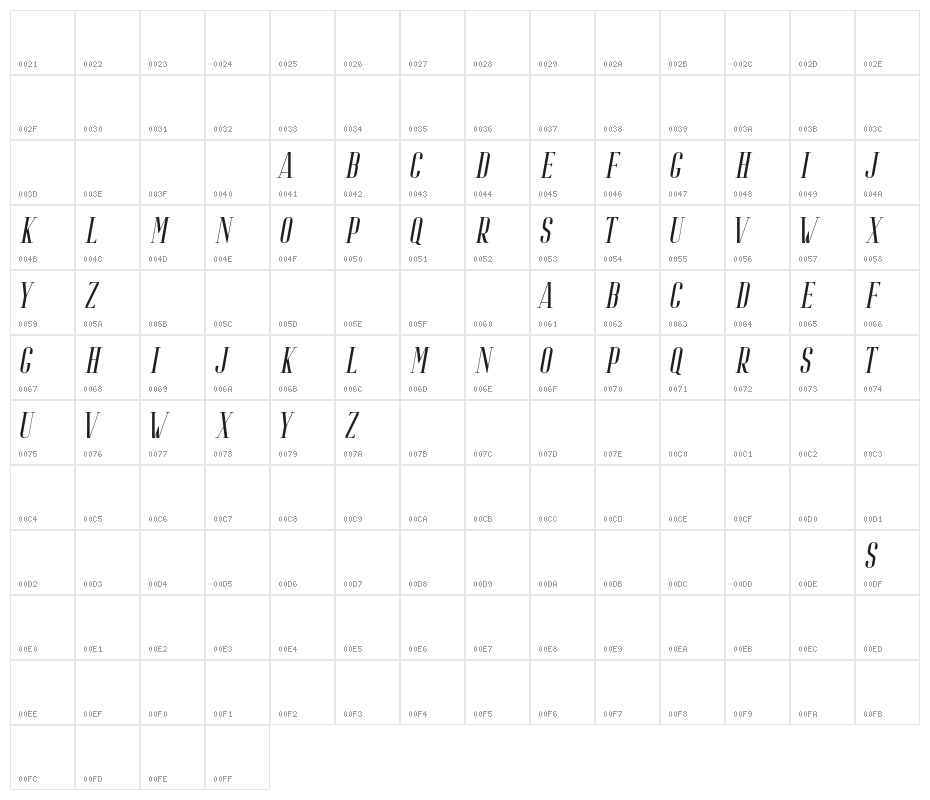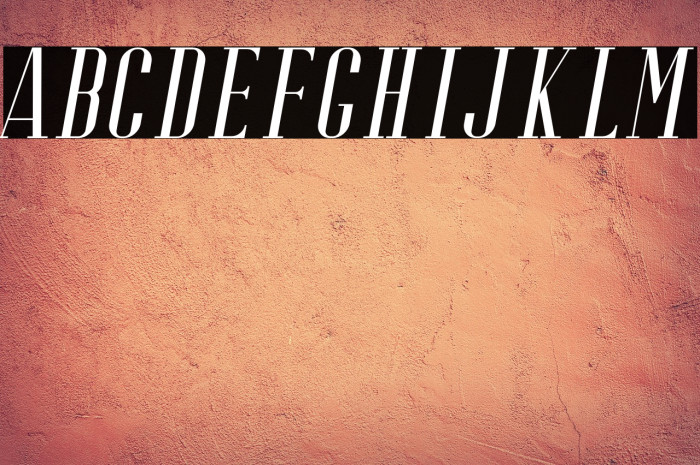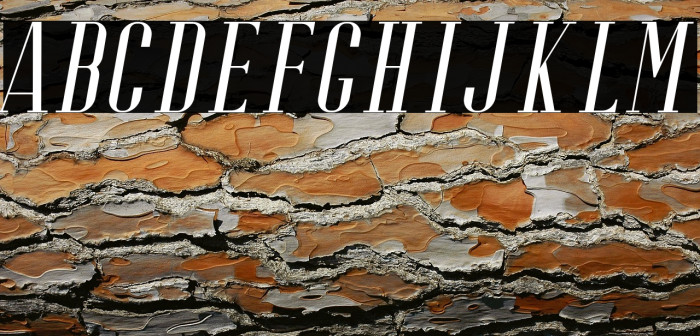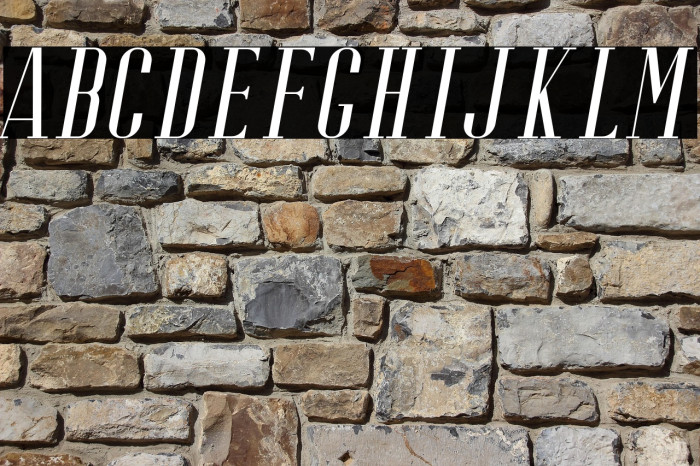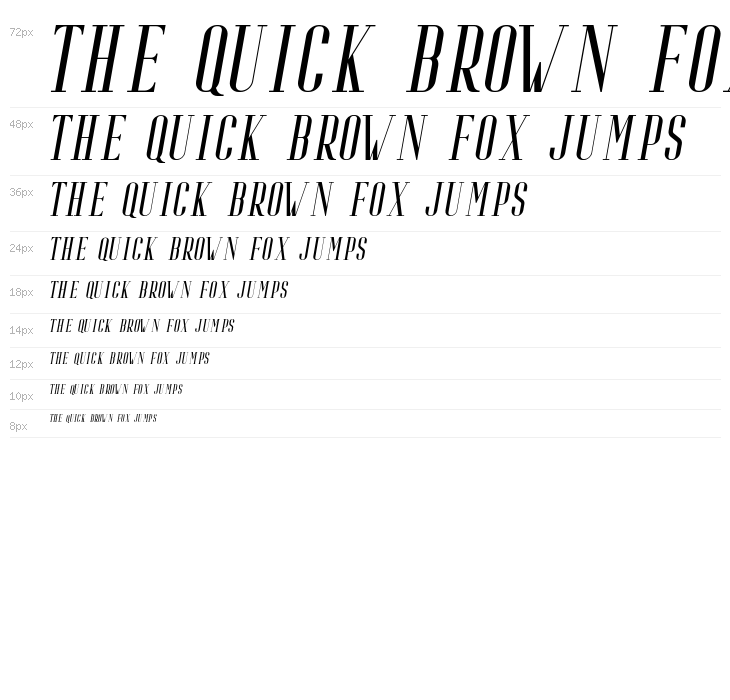
RiffleFree-Italic Font
RiffleFree-Italic Description
This font features a sleek and elegant italic style with a distinctive slant that adds a sense of motion and sophistication. The characters are tall and narrow, with a high contrast between thick and thin strokes, giving it a refined and stylish appearance. The serifs are sharp and pronounced, enhancing the classic feel while maintaining a modern edge. The overall design is clean and professional, making it suitable for a variety of applications where a touch of elegance is desired.
| Proposed Projects | Ideal for luxury branding, fashion magazines, elegant invitations, and sophisticated editorial design. |